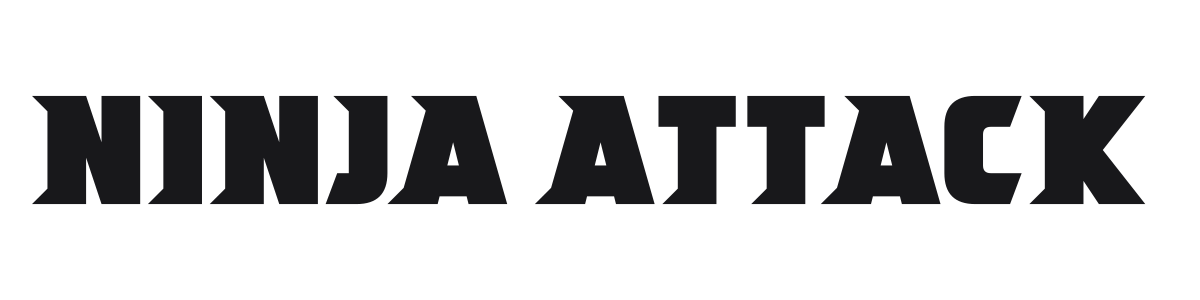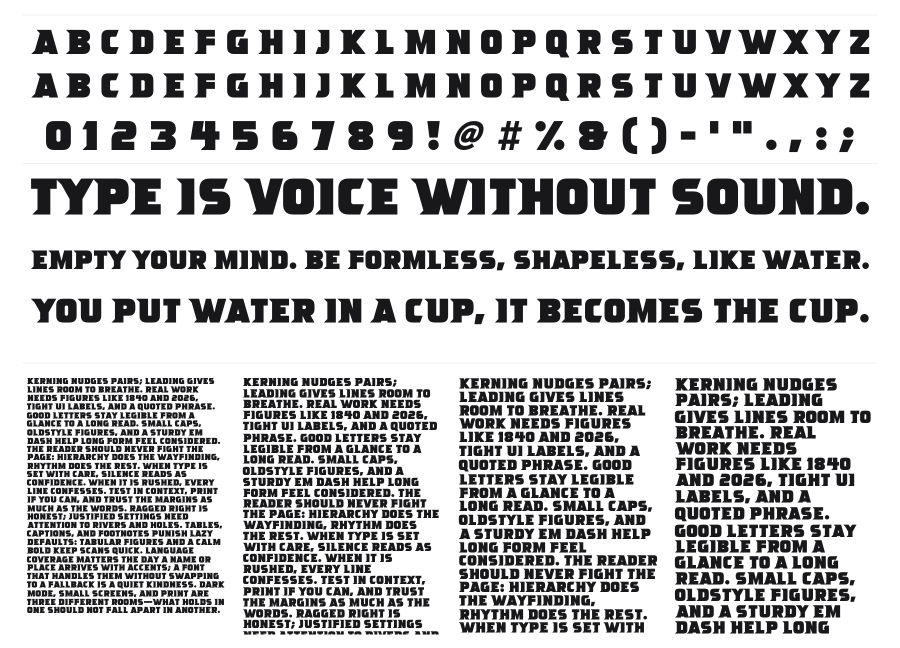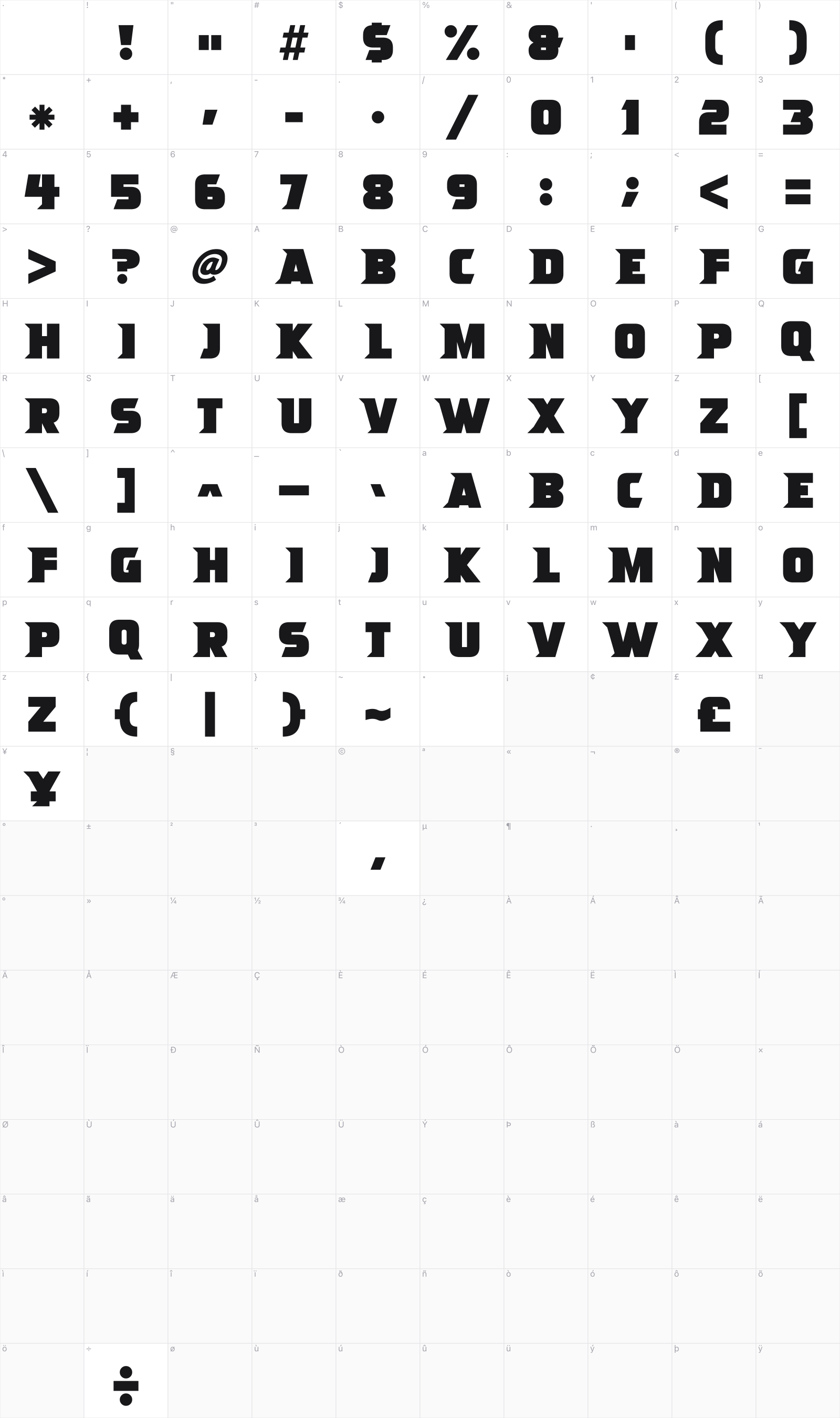
Ninja Attack
Ninja Attack is a heavy condensed slab-serif with sharp wedge cuts and angular notches that give it a sliced, blade-like quality. The ultra-bold weight and tight spacing make it read instantly at large sizes, with just enough retro sports lettering DNA to feel familiar yet distinctive. It lands naturally on game titles, fight posters, and any project that needs raw typographic muscle.